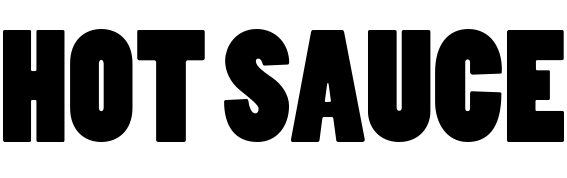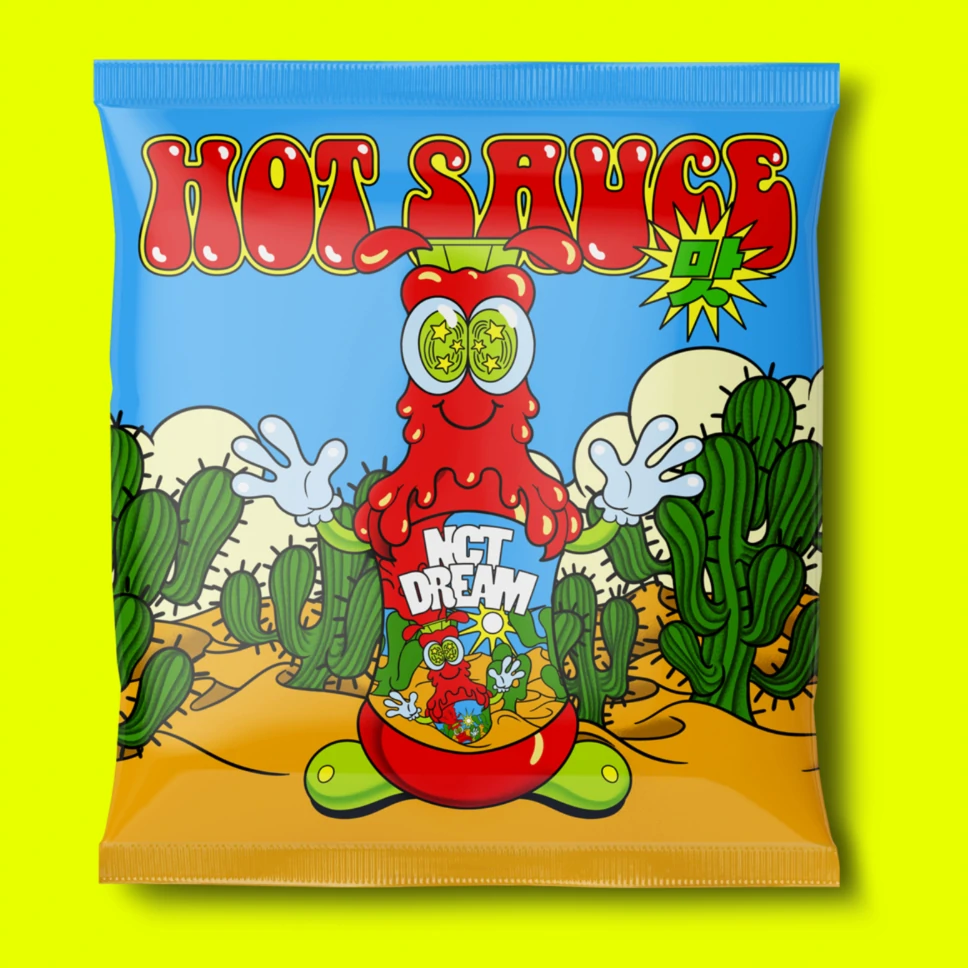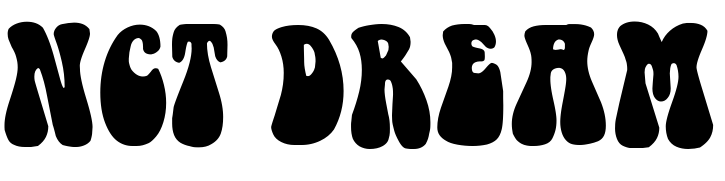
Hot Sauce (NCT Dream) Font
Fonts in UseHot Sauce is the first studio album by South Korean boy band NCT Dream, released in May 2021. The album features 10 tracks, including the title track "Hot Sauce," and explores a variety of genres including hip-hop, R&B, and pop.
The band features Poplar, a font created by Barbara Lind in 1990 for Adobe Wood Type, for their name. The album title is set in Doobie, an Art Nouveau typeface from Canada Type. Bell Bottom Laser by Lorvad, is a free font comparable to Doobie, that can also be used if you are looking for a free alternative.